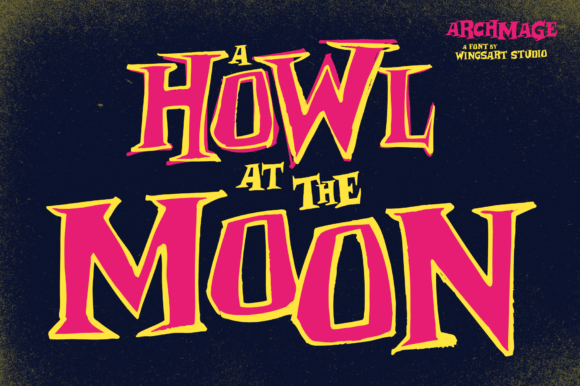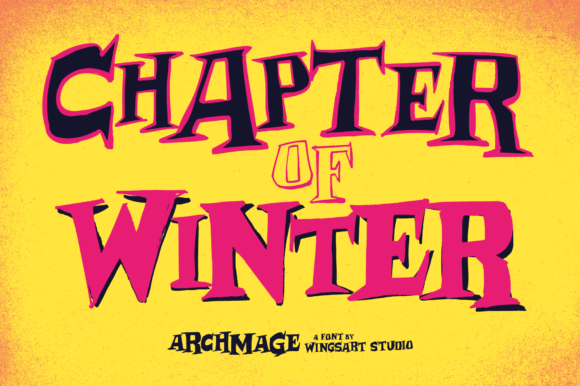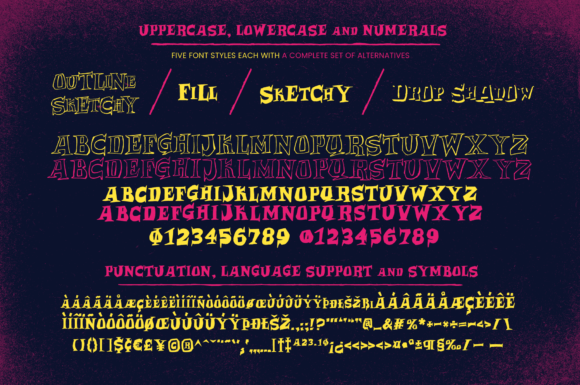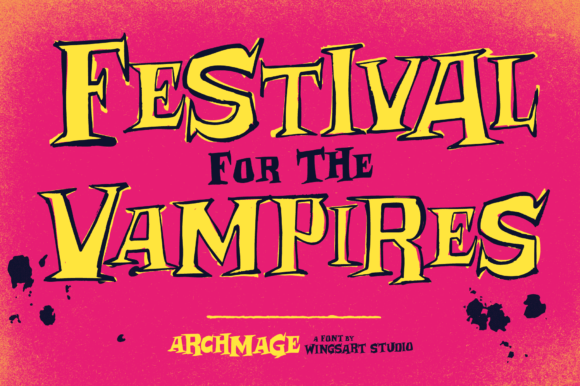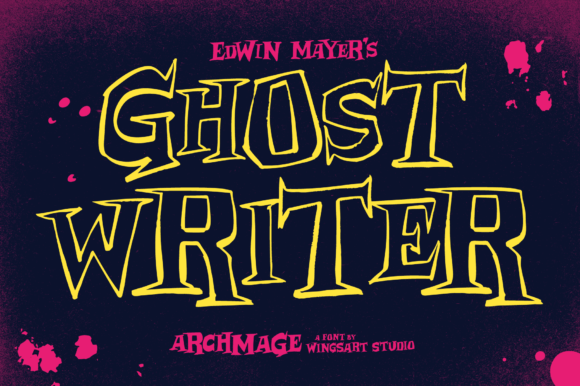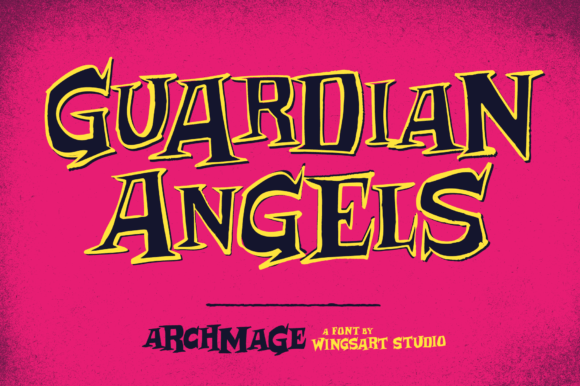
Introducing Archmage Font: A Hand-Drawn Masterpiece for Fantasy, Folklore, and Horror
Are you a designer or craftsperson looking for a font that can bring your fantastical tales to life? Look no further than Archmage, a hand-drawn font that combines literary influences from the worlds of fantasy, folklore, and horror. This inky design is perfect for book cover illustrations, low-fi films, and any project that requires a touch of magic and mystery.
A Versatile and Layered Font System
Archmage offers a versatile and layered font system, making it easy to create unique and visually stunning designs. The font comes in five unique styles, each with a complete set of alternatives that can be used alone or combined for dramatic effect. This means you can mix and match different styles to create a truly one-of-a-kind look.
All-Caps Design with Endless Possibilities
Archmage is an all-caps design, offering a complete and unique set of uppercase and lowercase characters, along with numerals, punctuation, symbols, and language support. Each of the five styles comes with a set of alternatives, ensuring that you’ll never have to repeat characters. This level of versatility makes Archmage perfect for a wide range of design applications.
Decorative Underlines and Symbols for Added Detail
To add an extra touch of elegance and sophistication to your designs, Archmage includes a collection of decorative underlines and symbols. These can be used to add detail and texture to your work, making it truly stand out from the crowd.
A Hand-Drawn Design that Exudes Character
Archmage is designed to appear loose and truly hand-made, giving your designs a unique and organic feel. The font’s inky texture and subtle imperfections make it perfect for creating a sense of atmosphere and mood in your work.
Whether you’re a designer or craftsperson, Archmage is the perfect companion to your next project. The font is ideal for book cover illustrations, low-fi films, and any other project that requires a touch of fantasy, folklore, or horror. With Archmage, you can create designs that are truly magical and memorable.
Key Features of Archmage Font
- Hand-drawn design with literary influences from fantasy, folklore, and horror
- Five unique styles, each with a complete set of alternatives
- All-caps design with uppercase and lowercase characters, numerals, punctuation, symbols, and language support
- Decorative underlines and symbols for added detail
- Inky texture and subtle imperfections for a unique, hand-made feel
- Perfect for book cover illustrations, low-fi films, and other design applications
Archmage font is a truly unique and versatile design that is perfect for designers and crafters looking to add a touch of magic and mystery to their work. With its hand-drawn design, literary influences, and layered font system, Archmage is the perfect companion to your next project. So why wait? Download Archmage today and start creating your own phantasmagorical tales!